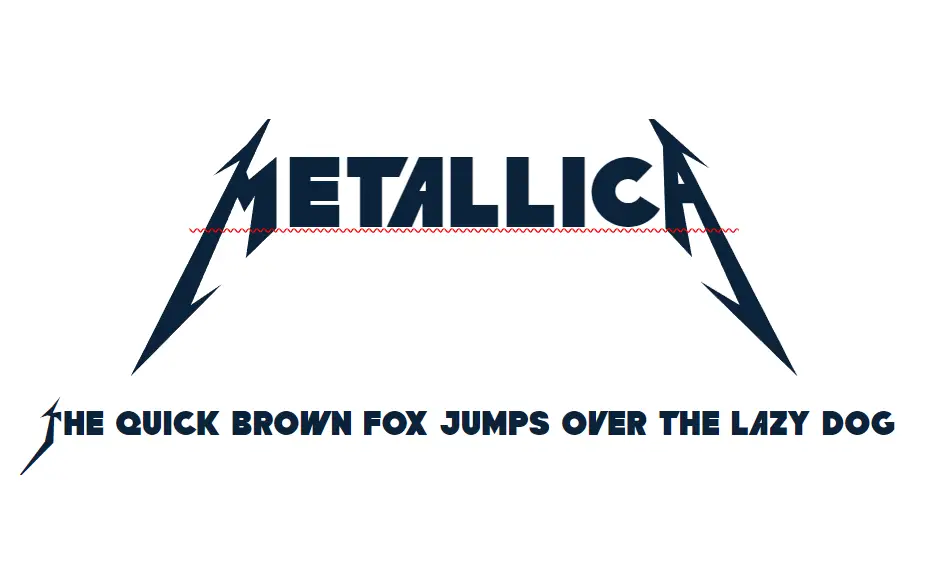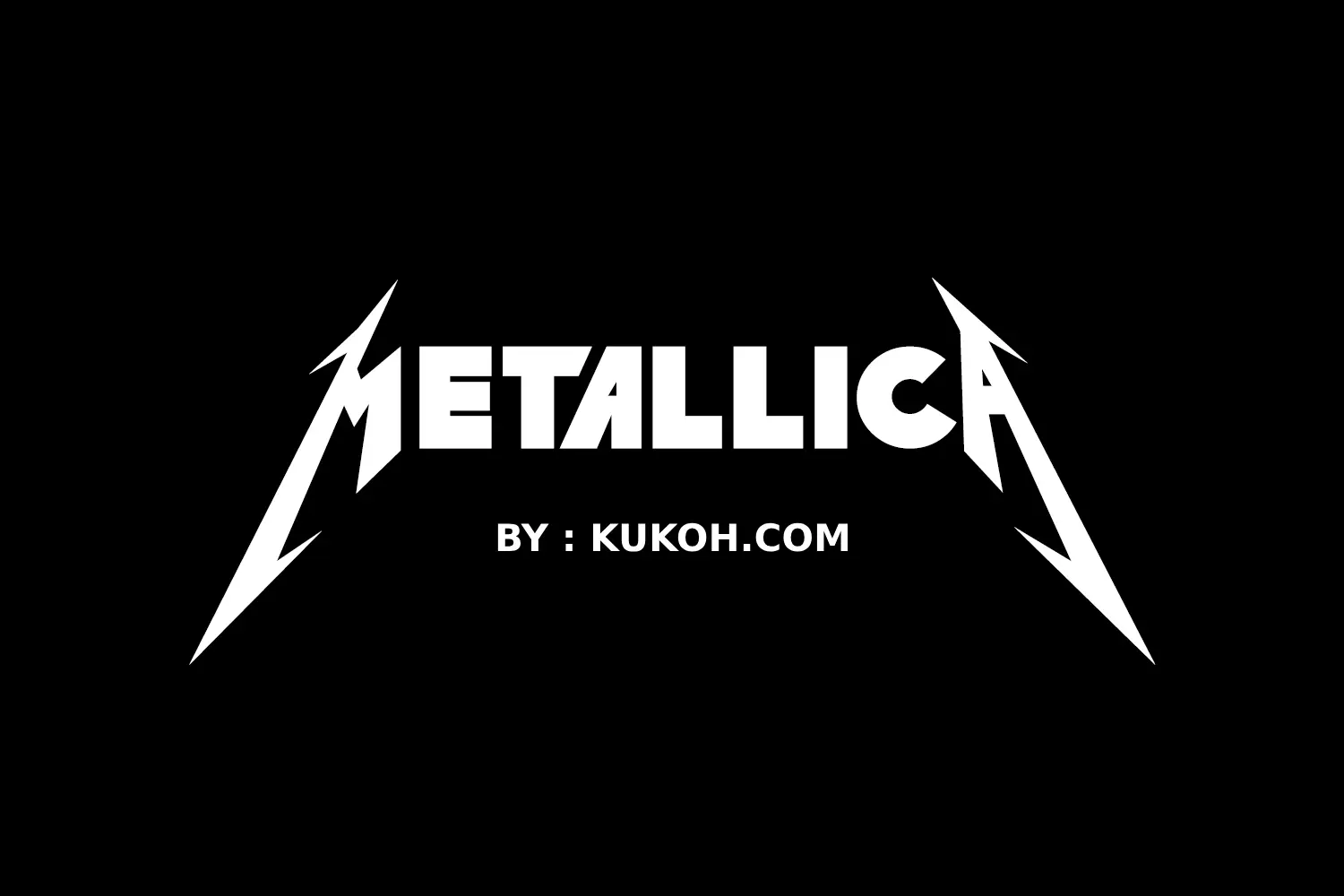
The Metallica font takes inspiration from the iconic American heavy metal band, Metallica, known for their bold, electrifying visual identity. As a display font, it perfectly captures the band’s aggressive and energetic style. This typeface is often used for posters, logos, merchandise, and fan art, making it a popular choice for projects that need a strong, impactful presence.
Metallica was formed in Los Angeles in 1981 by James Hetfield, a talented American composer and musician, along with Lars Ulrich, the band’s dynamic drummer. Over the decades, the band has risen to legendary status, recognized as one of the “Big Four” of thrash metal. Their rapid speed, powerful riffs, and intense performances have influenced the world of music and graphic design alike.
The Metallica font reflects the band’s sharp-edged, rebellious aesthetic, making it ideal for branding, music events, and digital artwork. Whether you’re designing a rock-themed project or want a font that exudes boldness and character, this typeface offers both nostalgia and striking visual appeal.